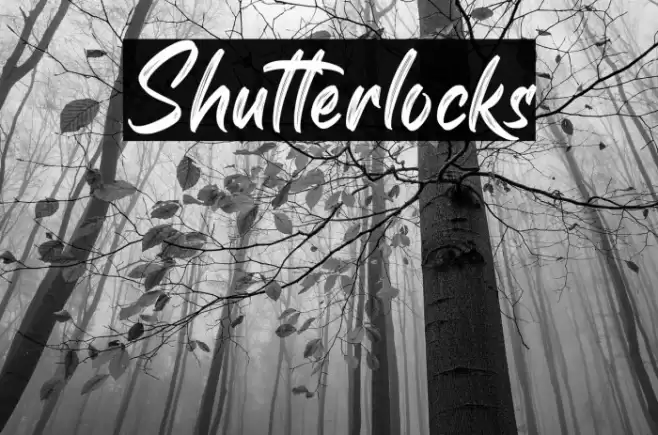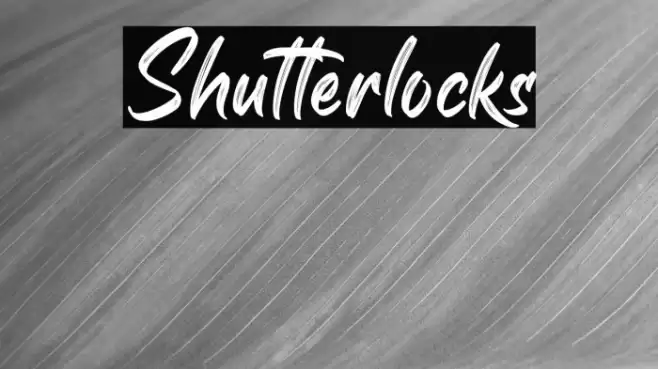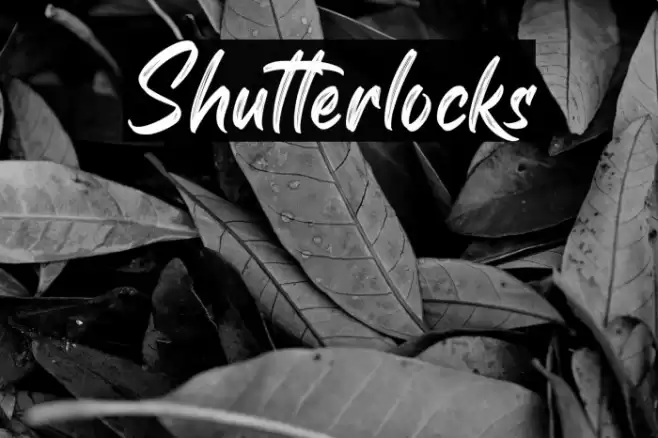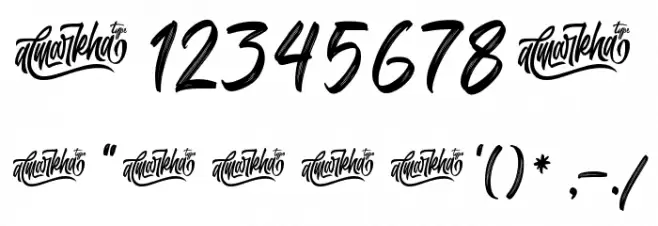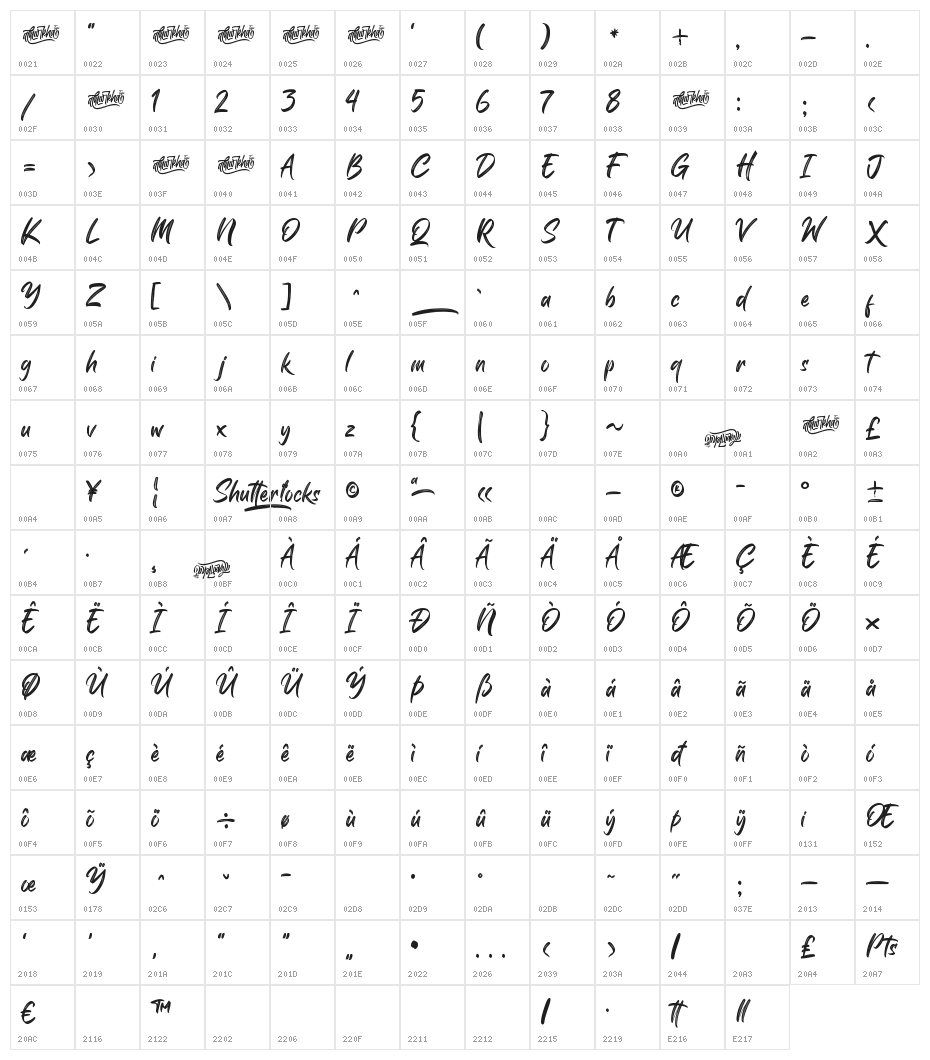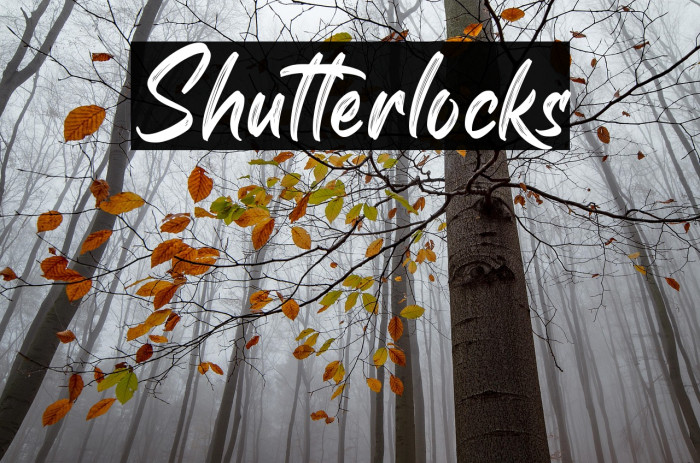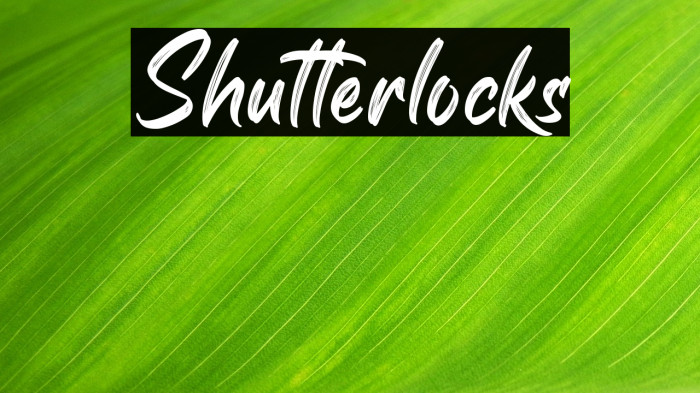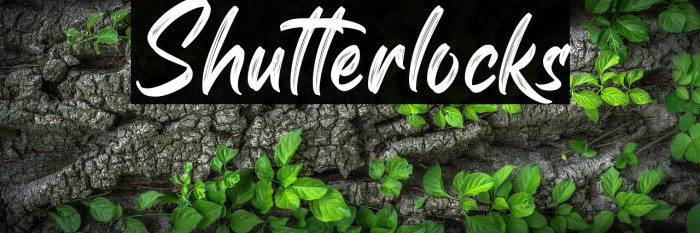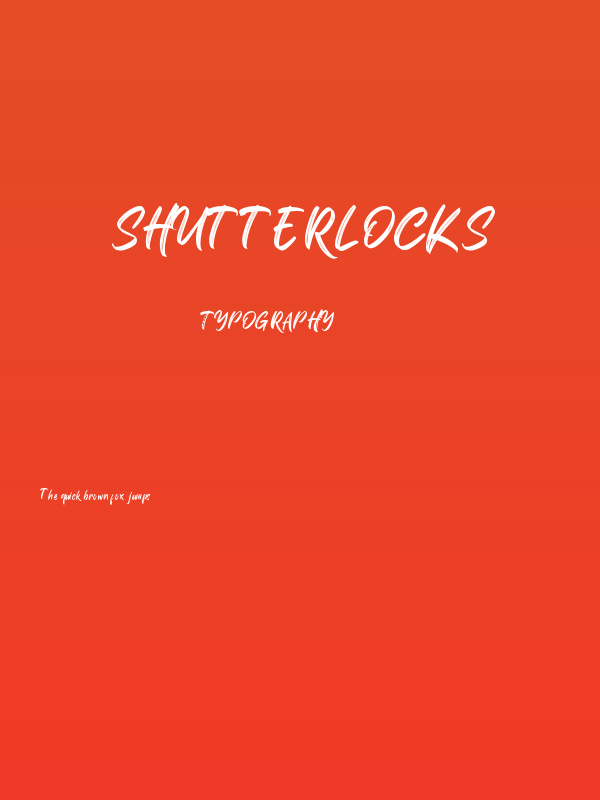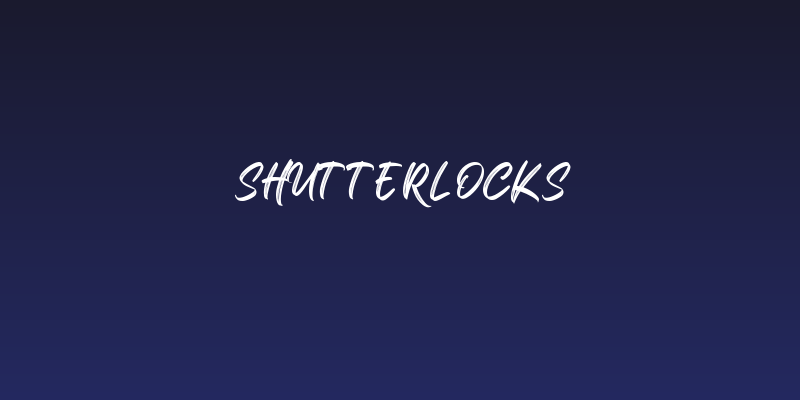
Shutterlocks Font
Shutterlocks Description
This font exudes a dynamic and energetic style, characterized by its bold, brush-like strokes that give it a handwritten appearance. The uppercase letters are particularly striking, with a fluidity that suggests movement and creativity. The lowercase letters maintain this fluidity, offering a cohesive look across different text cases. Numbers and special characters are crafted with the same attention to detail, ensuring consistency throughout. The font's overall aesthetic is modern and artistic, making it suitable for projects that require a personal touch or a sense of flair.
A bold, brush-style font with a dynamic, handwritten appearance from Regular fonts.
- Proposed Projects: Ideal for branding, logos, posters, and creative projects that require a personal and artistic touch.